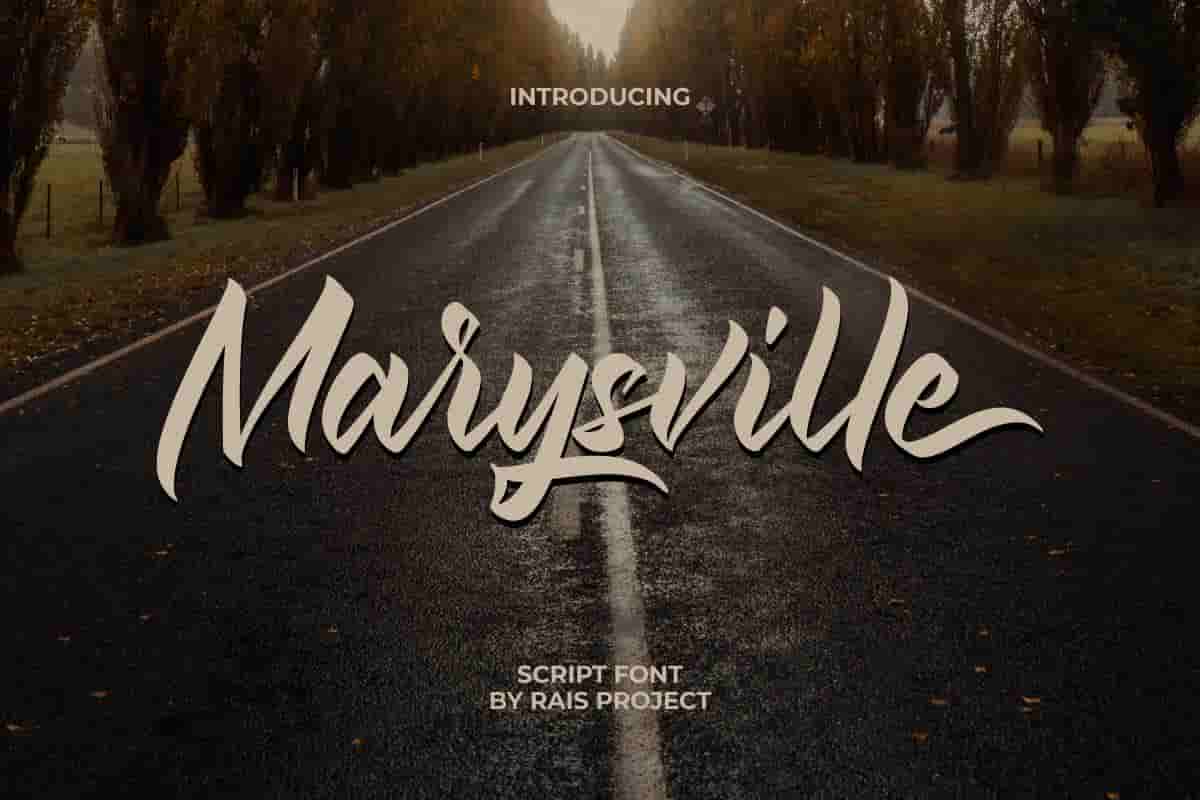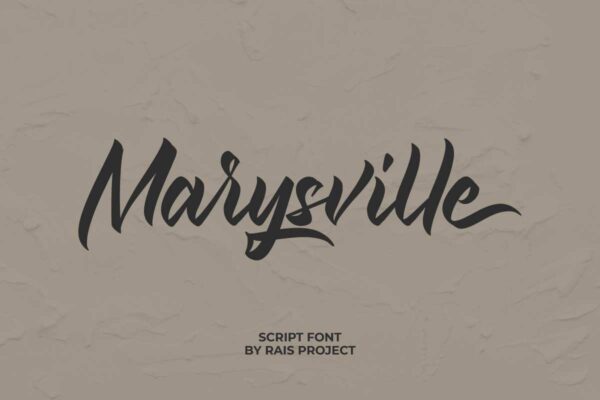
Marysville Signature Font
Marysville Font is a stunning brush handwriting signature font – made by RaisProject. Marysville brush Font has beautiful uppercase, lowercase letters, numerals, a range of punctuation and ligatures to make it stunning.
Marysville Font is a stunning brush signature font in a stunning style. You can see the demo font below. You can also input any word you want so you can see what it will look like :
Marysville Brush Font is be great for any of your special projects including : professional, weddings, promotion, events, branding, advertising, magazine, shopping, signage, invitation, stationery, social media posts, product packaging, product designs, label, photography, watermark or and any projects that need handwriting style. Marysville Font includes full set of gorgeous uppercase and lowercase letters, numerals, a large range of punctuation and ligatures. We made it looks simple yet stunning handwritten looks, giving realistic handwriting style.